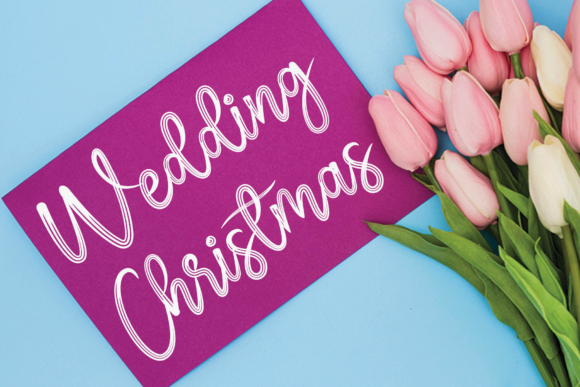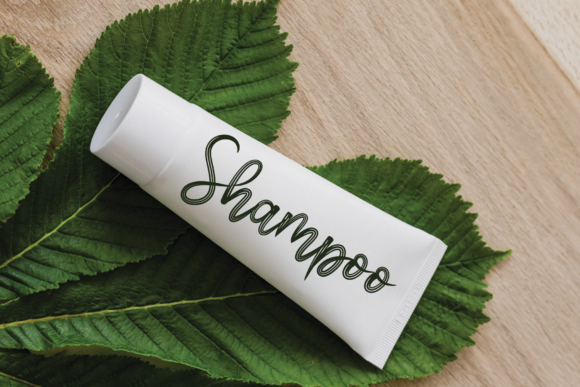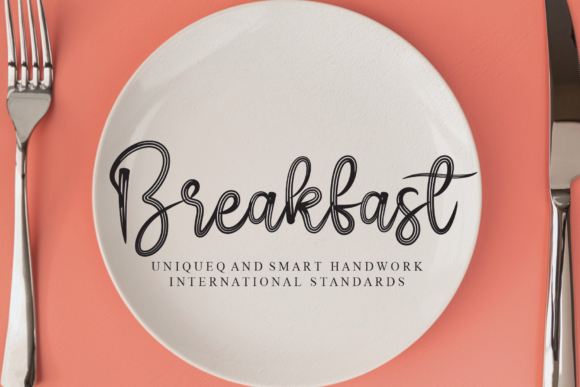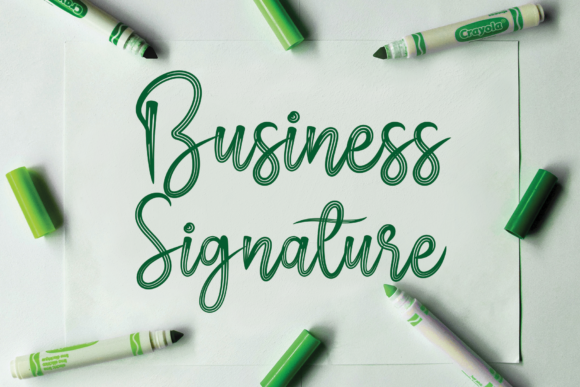
Christmas New Year Font – Free Download
Introduction to Christmas New Year Font
Christmas New Year is an elegant and dainty handwritten font that features sweet and delicate swashes.